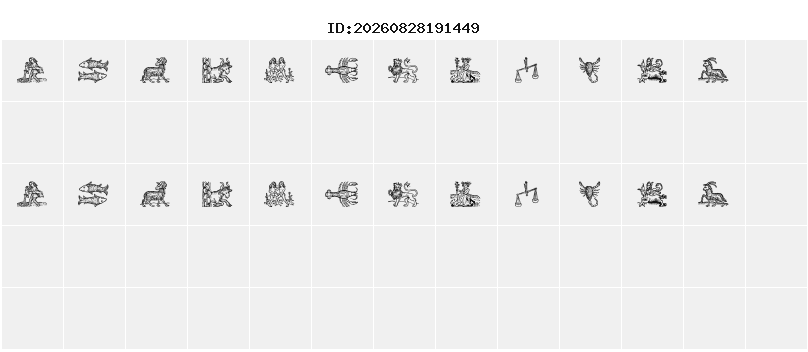
Tierkreis 3 Preview
• Font Name: Tierkreis 3
• Designer: Dieter Steffmann
• Description: Tierkreis-Vignetten nach Zeichnungen von Franz Franke. Bauersche Giesserei in Frankfurt a. Main und Barcelona